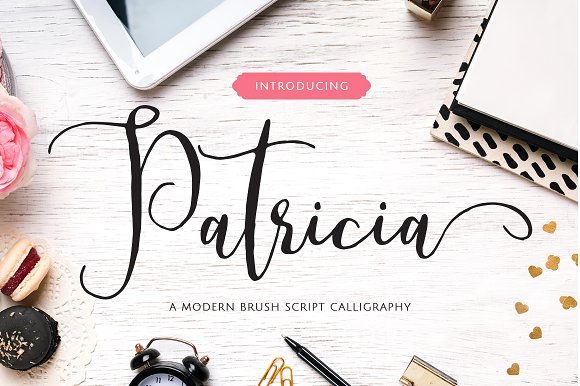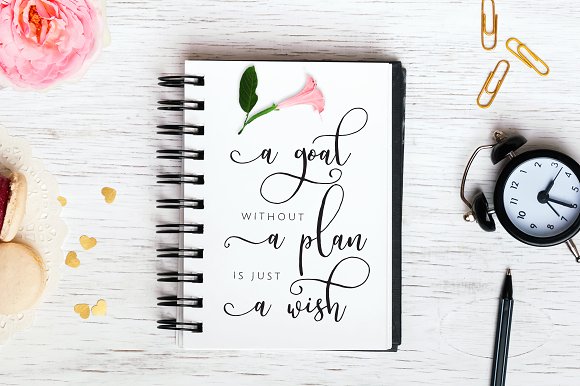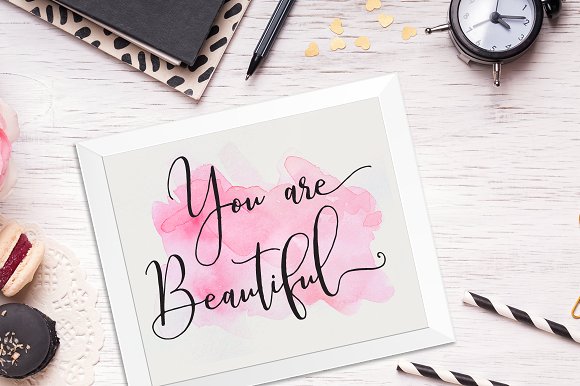
About Patricia Font
Patricia is a modern calligraphy script, reminiscent of springtime’s dainty appeal. With floral swashes and high contrast strokes, Patricia is a beautiful and stunning addition to any number of designs.